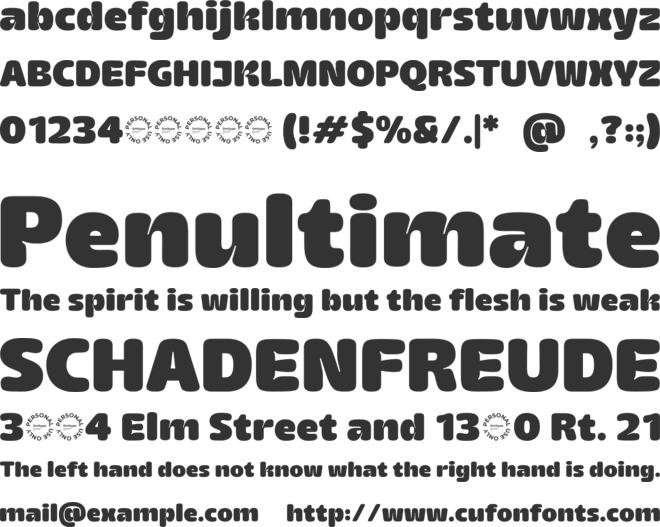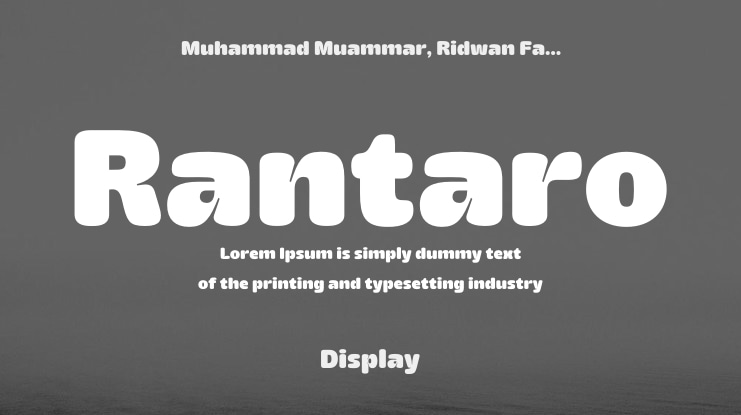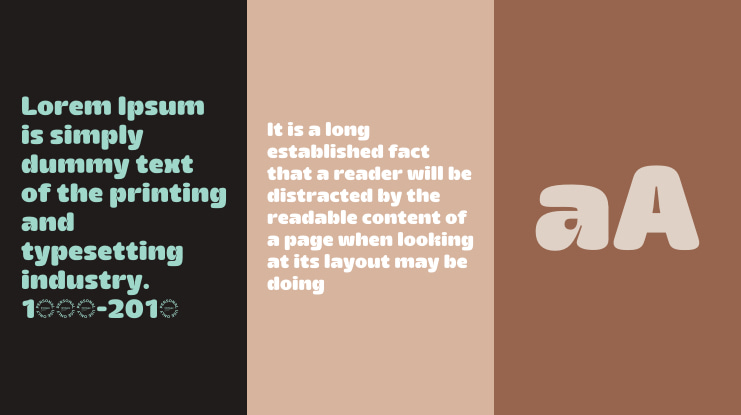
Rantaro Font
Muhammad Muammar, Ridwan Fadilah, Furqan Sudirman
Rantaro is a modern display font featuring a smooth, rounded style that gives it a friendly yet professional look. Unique inktrap details on several characters add personality and make it stand out. Perfect for large, eye-catching titles or headlines that need to be bold, clear, and modern without feeling too rigid.